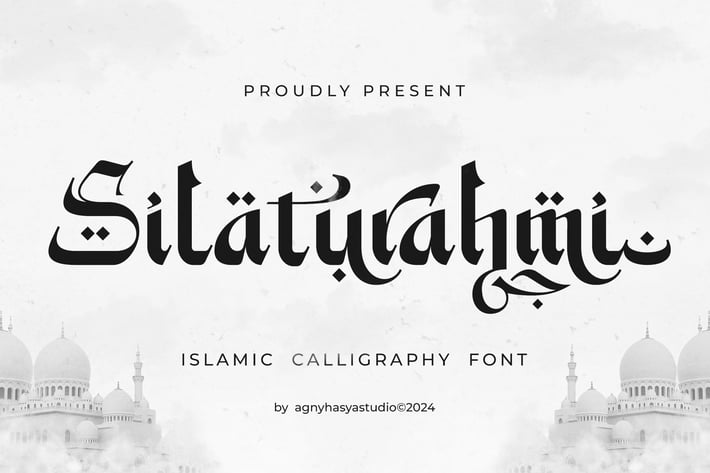
Silaturahmi - Islamic Calligraphy Font
Introducing Silaturahmi Is a Modern Arabic-Style Display Typeface With Calligraphic Nuances That Is Perfect for Islamic Event Design Projects, Especially During Ramadan.
This Typeface Comes With Unique Alternates and Ligatures,\
Allowing You to Experiment With Character Styles, Resulting in Visually Interesting and Cool Typography.\
It Also Supports Multilingual Characters, Making It Perfect for Use in Various Languages.
It's Perfect for Design Projects Such as Logos, Advertising, Branding, Posters, Banners, Product Designs, Art Quotes, Special Events, Product Packaging, and More.